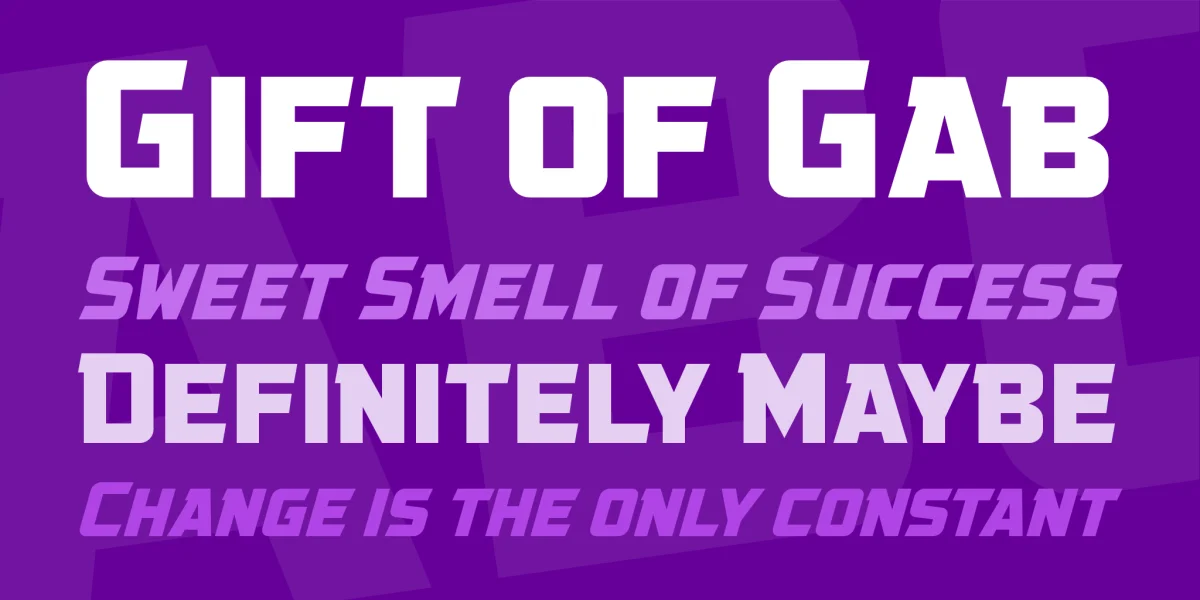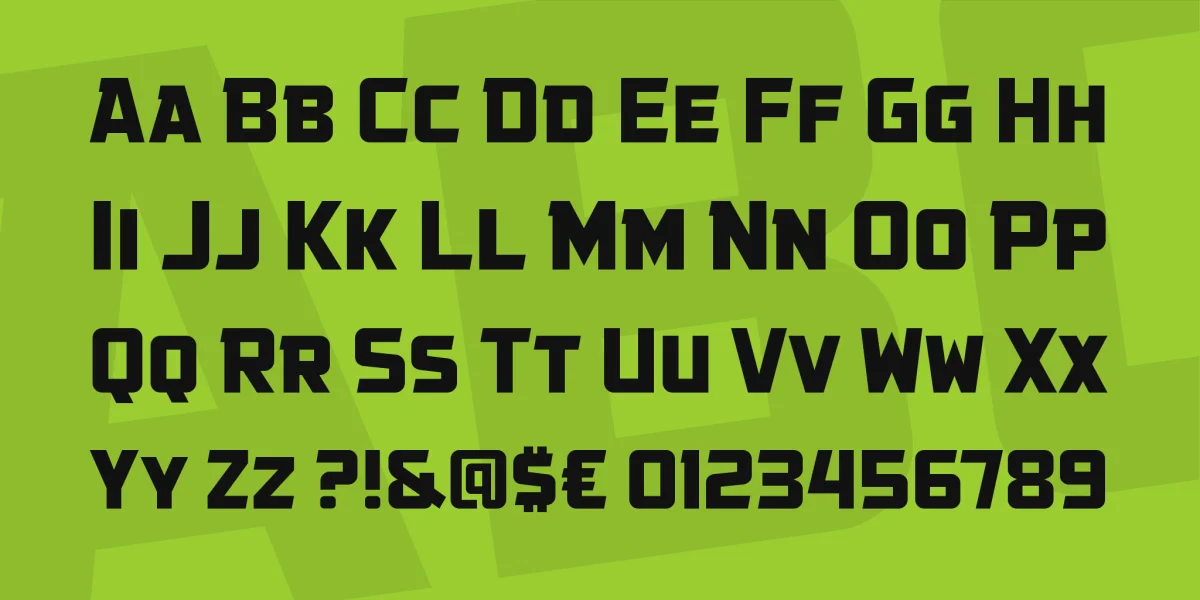
Deny everything! We do not exist! This blocky title font is ready to handle all your cover copy duties. Comes with Regular and Italic. (And compliments Might Makes Right really well!)